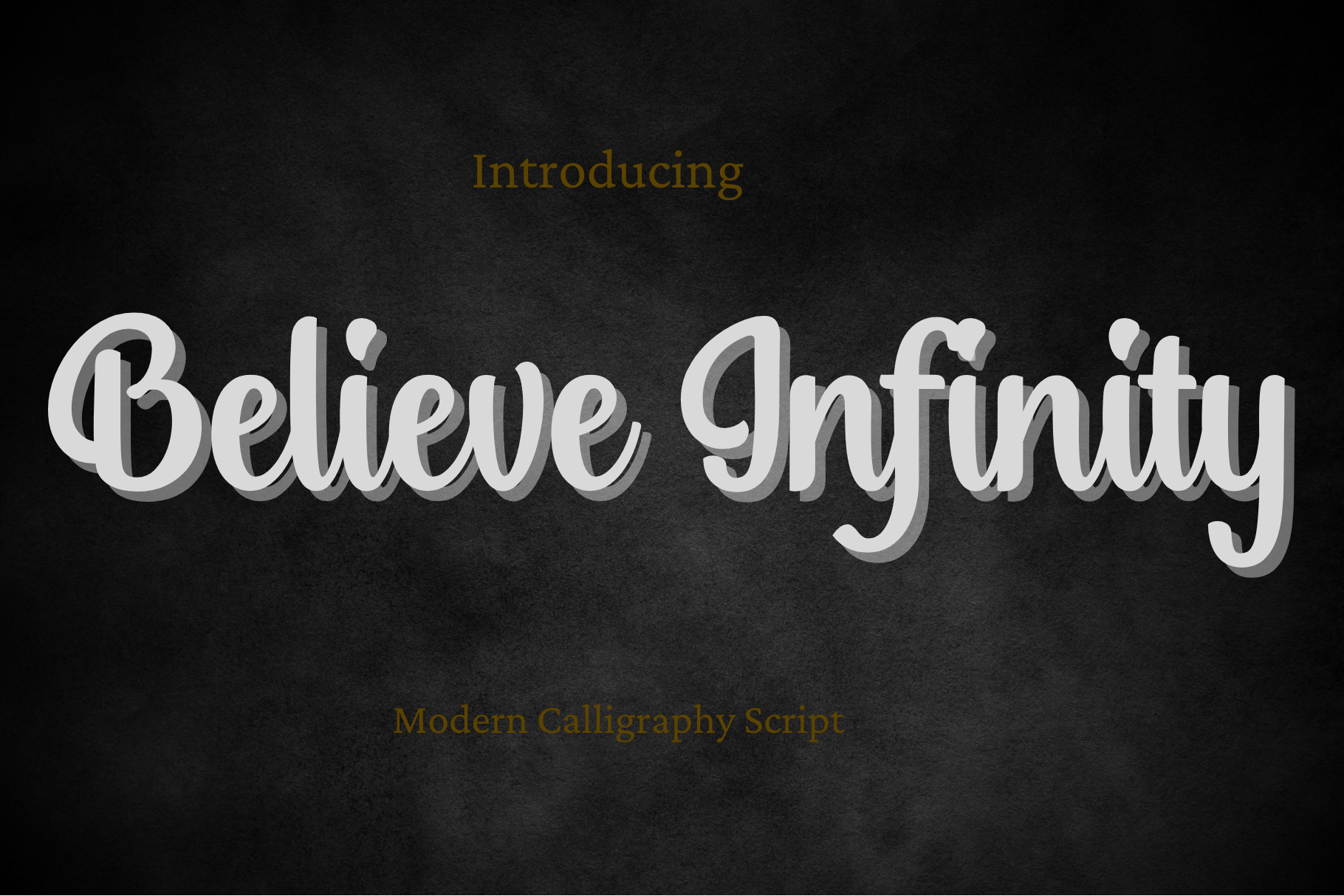
Believe Infinity
Believe Infinity is a font family published by Aditastudios.
Believe Infinity is a beautiful, well-balanced, and vintage-styled script font. It is defined by smooth curves and is perfect for fashion branding or editorial designs. Believe infinity is PUA encoded, which means you can access all of the glyphs and swashes with ease!